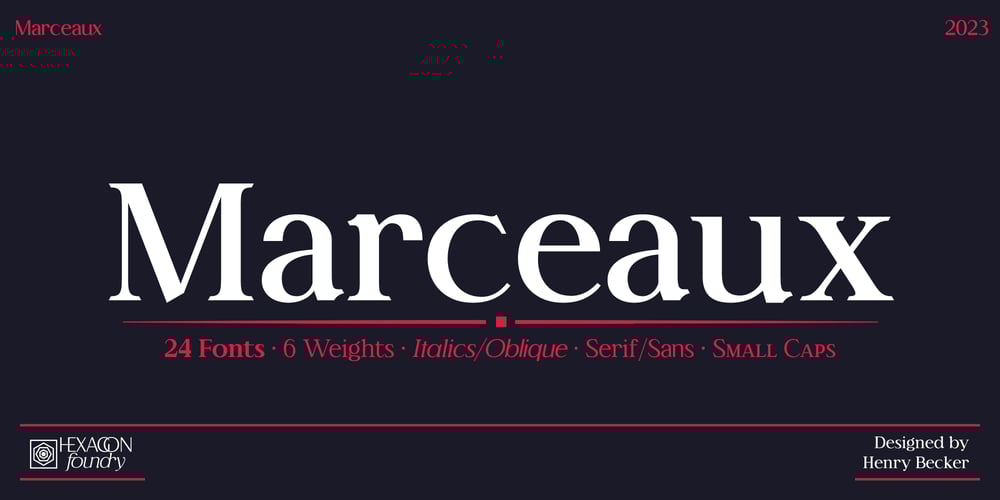
Marceaux
Marceaux font
Marceaux Font Family was designed by Roland Hüse and published by Hexagon Foundry. Marceaux contains 24 styles and family package options. Marceaux is a sophisticated font with a touch of elegance and modernity. The letterforms are sleek and slender, with clean lines that give this font a refined and graceful appearance. Whether you’re creating a logo, a book cover, or a website, Marceaux will bring a touch of class to your project.Marceaux features a complete set of small caps, uppercase, and lowercase letters. The font has been developed in six weights, from light to black, with corresponding true italics and oblique letters, and two styles (serif and sans-serif) for a total of 24 styles, making it versatile enough to use in a variety of design applications. Marceaux includes an expanded character set that supports over a hundred latin-based languages.